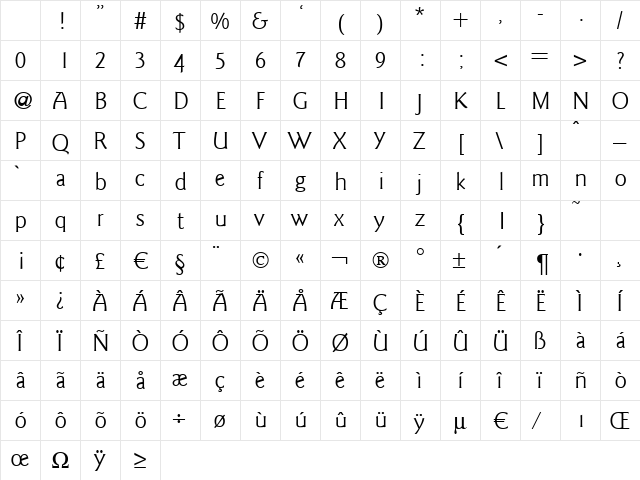
Complete GoudyElegantTwo Regular glyph index. Displaying only characters natively supported by GoudyElegantTwo Regular font.
GoudyElegantTwo is a composed and adaptable typeface that performs quietly and consistently across a wide range of design contexts.